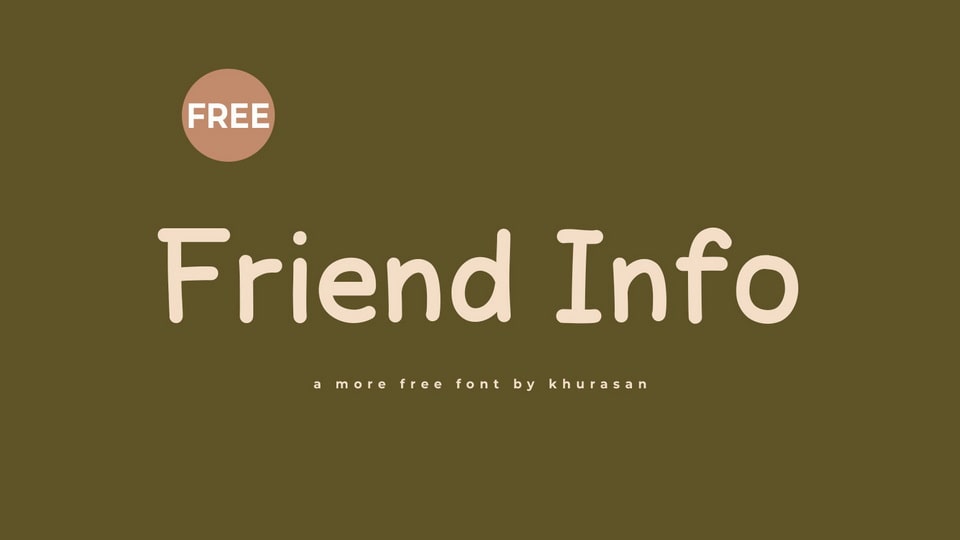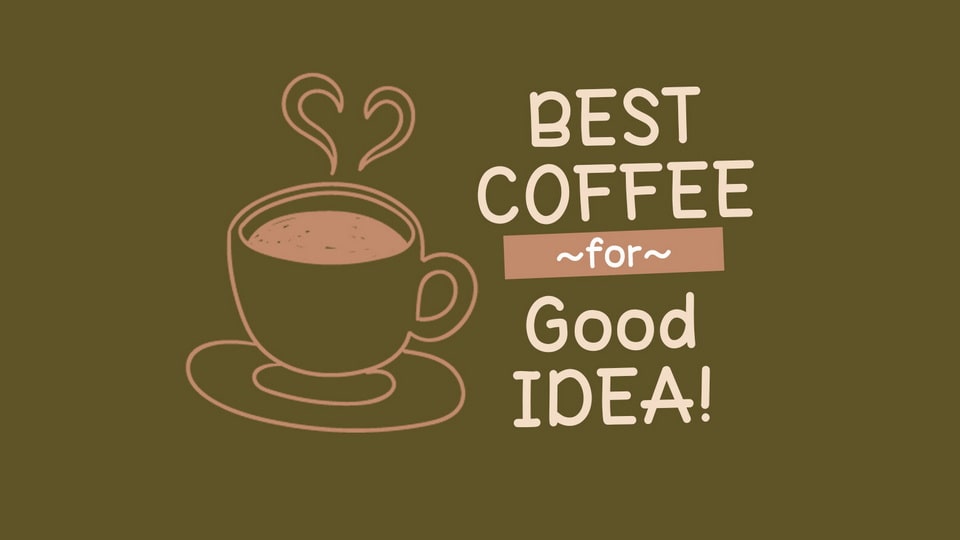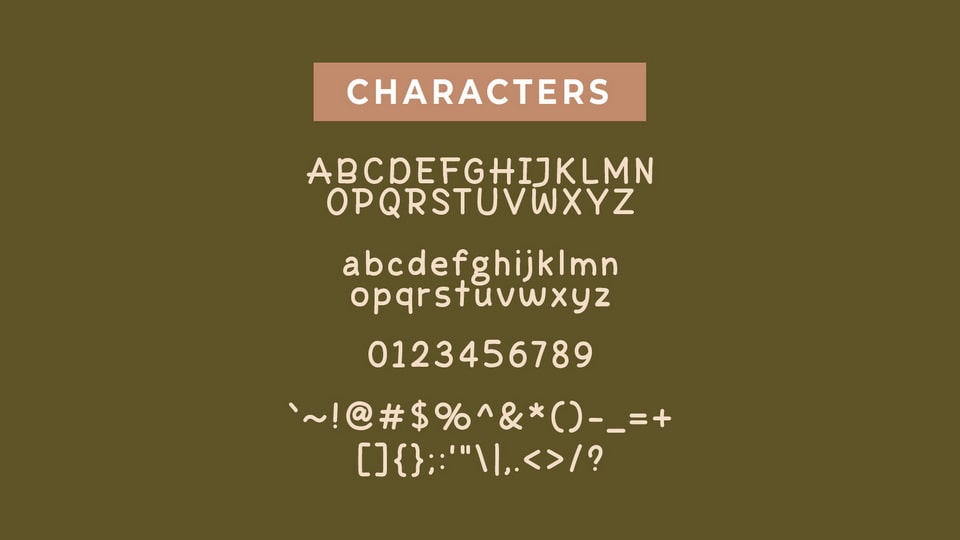
Friend Info is a simple and clean handwritten font that captures the essence of casual handwriting with clarity and ease. The font is crafted with straightforward strokes and consistent letterforms, making it perfect for quotes, lists, and reminders.
With its unpretentious and legible style, Friend Info is ideal for projects that require a relaxed and informal touch. Whether you’re designing digital planners, personal journals, or sticky notes, this font offers a seamless and effortless writing experience.